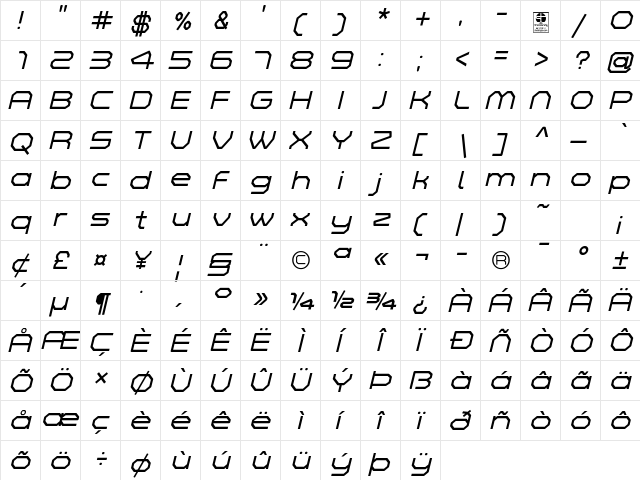
Zelta-Six Demo Light Italic
| Foundry | StudioTypo |
| Designer | Mehmet Abac |
Design Context for Zelta-Six Demo Light Typeface
Zelta-Six Demo Light is a composed and adaptable typeface that performs quietly and consistently across a wide range of design contexts. Its italic angle brings a sense of urgency and motion to the letterforms. The delicate stroke weight brings airiness and refinement to layouts.
Pro Tip: Use Zelta-Six Demo Light for emphasis, pull quotes, and subheadings where its slanted energy can add rhythm to the layout.